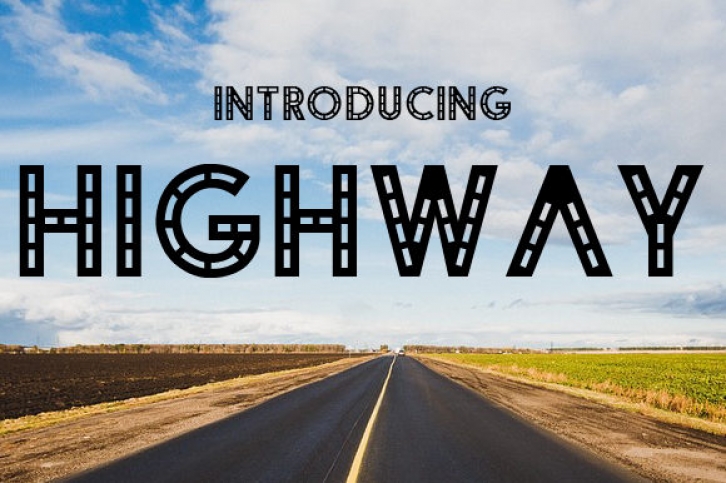
The Highway is a simple, yet striking typeface. It’s amazing letters will add an unique touch to your designs.
It’s perfect for name cards, posters, logos, magazines, covers, banners, t-shirts and headers.